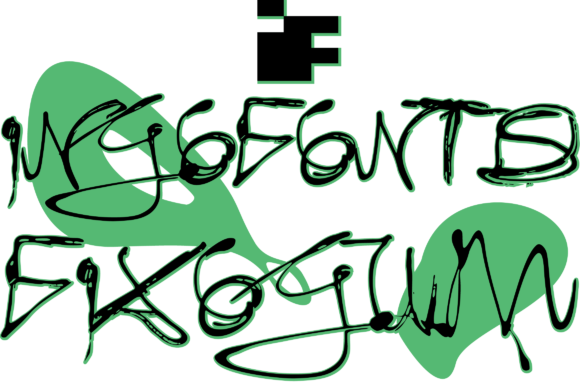
Unleashing Your Creativity with Fixogum Font
Have you ever found yourself stuck in a design rut, struggling to convey the perfect message or evoke the right emotions in your audience? For designers, this can be a frustrating experience, but it’s also an opportunity to get creative and experiment with new tools. That’s exactly what happened to me when I stumbled upon the Fixogum Font – a game-changing, bold handwritten font that’s taken my designs to the next level.
Fixogum Font is more than just a font; it’s a statement piece that adds a unique touch to any project. Its bold twist and playful flair make it perfect for branding, advertising, and even digital art. As a designer, having access to versatile and eye-catching fonts like Fixogum Font can be a total game-changer, allowing you to tap into your full creative potential and produce work that truly stands out.
Fixogum Font Key Features
- Unique Characteristics: The font features a distinctive, hand-drawn design with a mix of bold and delicate lines, giving it a unique and eye-catching appearance.
- Font Family: Fixogum Font is part of a larger font family that includes various weights and styles, allowing users to create a consistent look across different applications.
- Support: Fixogum Font supports a wide range of languages, including Latin, Cyrillic, and Greek, making it a versatile choice for global applications.
Fixogum Font Review
I recently had the chance to work with the Fixogum Font, and I have to say it’s a mixed bag. ✨ Here are some things that work well:
- Fixogum has a unique, hand-crafted feel that adds character to any design.
- The font is highly legible, even at small font sizes.
- The font family includes a wide range of weights and styles, making it versatile for various design applications.
- The font may not be suitable for body text, as it can be a bit too ornate and distracting.
- The font’s unique feel can sometimes come across as inconsistent or uneven, depending on the specific design application.
Overall, I would say that Fixogum Font is a great choice for designers who want to add a touch of personality to their designs. However, it’s not a one-size-fits-all solution, and designers should carefully consider their project requirements before choosing this font.
Fixogum Font Application Guide
Fixogum Font is ideal for use in:
- Street art and graffiti designs.
- Urban and edgy branding.
- Experimental typography projects.
3. Graffiti Font
Does Fixogum Font support Unicode characters?
Yes, Fixogum Font supports a wide range of Unicode characters, including Latin, Cyrillic, and Greek alphabets. This makes it an ideal choice for multilingual designs and applications.